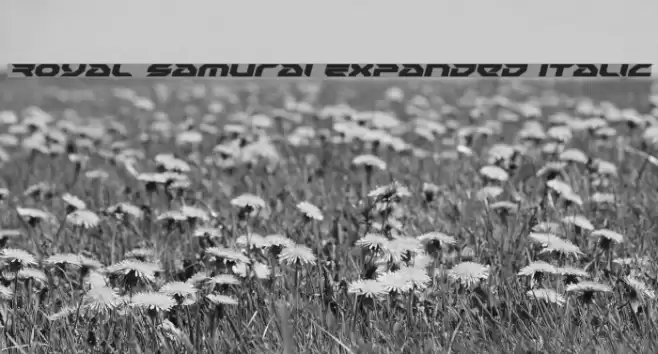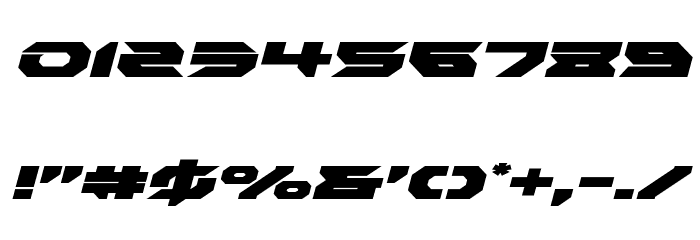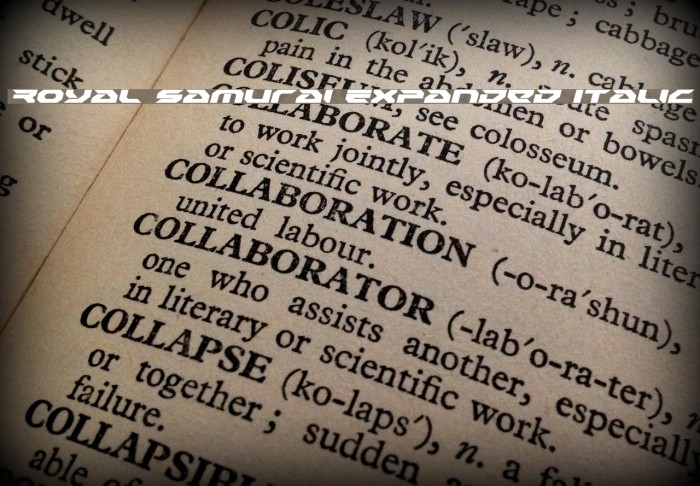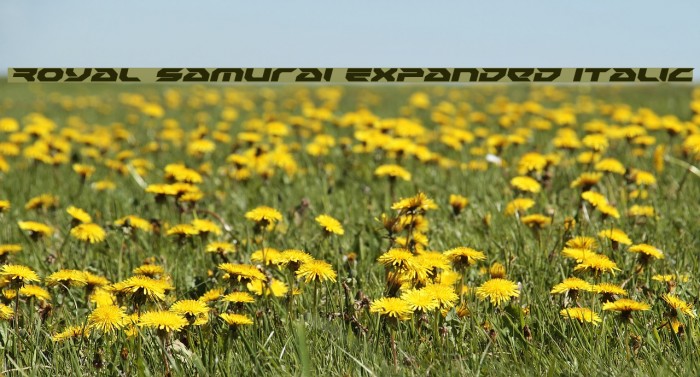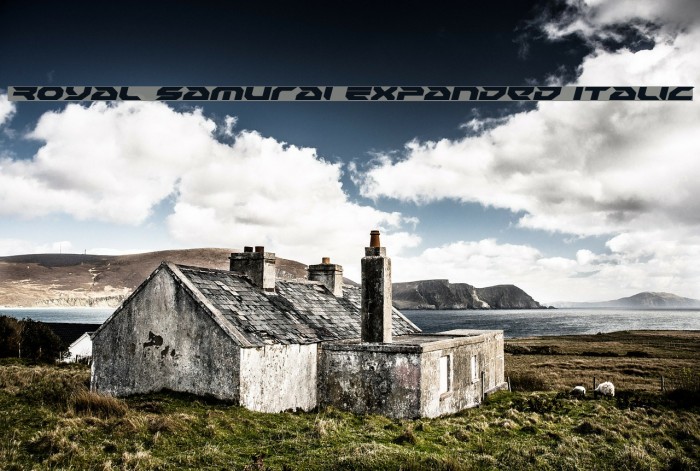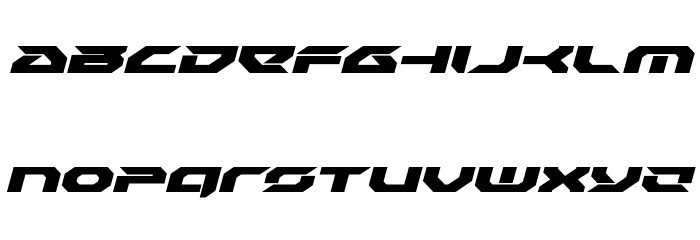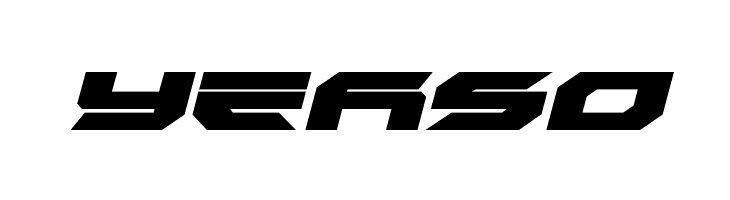
Royal Samurai Expanded Italic Font
Royal Samurai Expanded Italic Description
This font features a bold and dynamic style with an expanded and italicized form. The characters are designed with sharp, angular edges and a futuristic aesthetic, reminiscent of a samurai's precision and strength. The uppercase and lowercase letters maintain a consistent geometric structure, while the numerals and special characters complement the overall design. The font's expanded width and italic slant give it a sense of motion and energy, making it stand out in any design project.
A bold, expanded, and italicized font with a futuristic, angular design from Uncategorized fonts.
- Proposed Projects: Ideal for use in video game titles, movie posters, branding for tech companies, or any project requiring a modern and dynamic look.